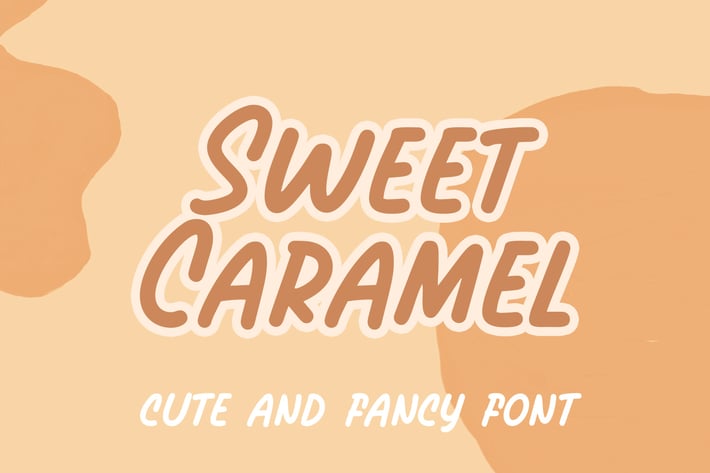
Sweet Caramel Display Font
Sweet Caramel Display Font is a specially crafted for children, Boys, Kindergarten, Birthday, Kid, Cartoon, and Comic purposes.